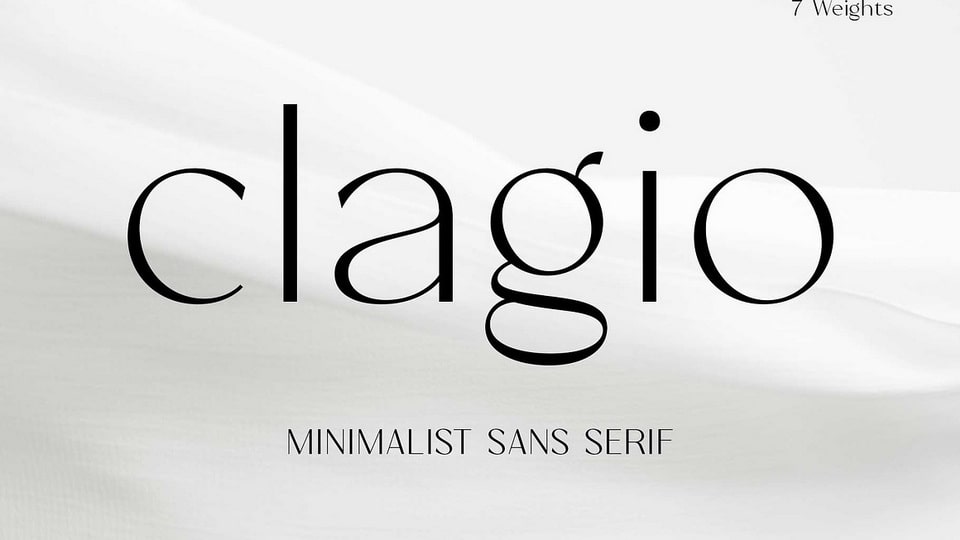
Download Clagio font, a contemporary sans-serif typeface that blends clean geometry with subtle warmth, creating a modern voice that feels both stylish and approachable.